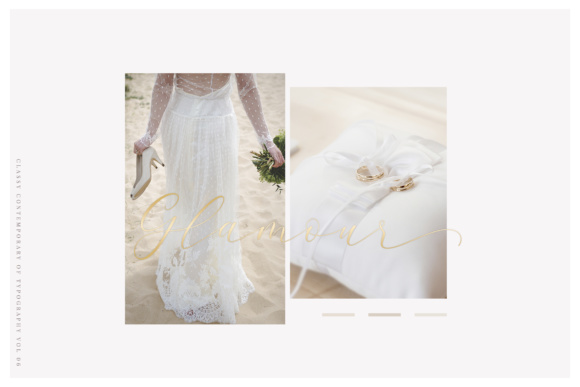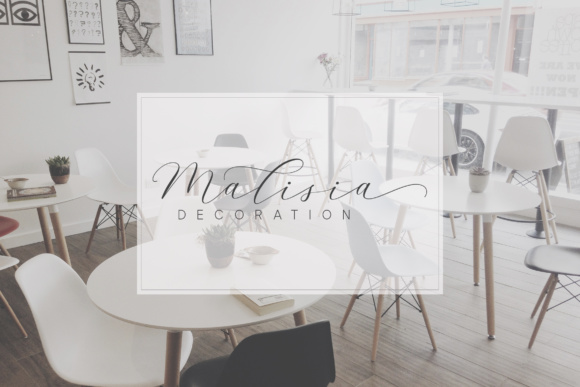
Antara Script Font
db-ku.com - Script & Handwritten -- Antara is a classy handwriting font with a distinctive curve. It has lots of beautiful swashes, beautiful ligatures and will give your design a elegant, feminine feel.